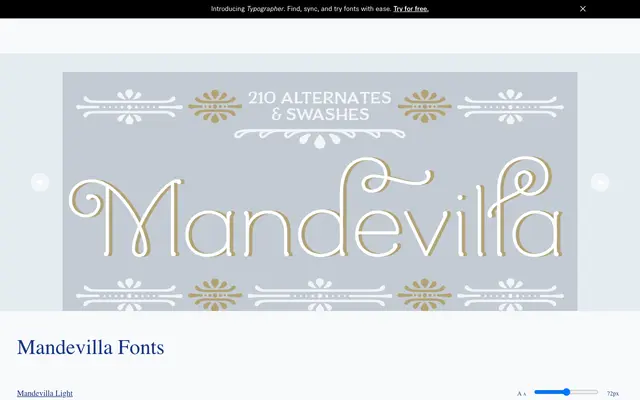
Mandevilla
A semi-serif display family with an elaborate decorative uppercase set, 210 swashes and alternates, and 38 ornaments, aimed at titling and logo work.
Mandevilla offers two distinct uppercase registers: a decorative default set with ornamental caps, and a plain titling set for less embellished applications. A 3/4-size small caps set, which drops the serifs and reduces ornamentation, allows mixed-case settings to retain coherent word shapes. Eight stylistic sets give fine control over letterform variation without requiring professional design software.
Described explicitly as a semi-serif, Mandevilla blends serif and sans-serif letterforms and is designed primarily for titling, display and logo use rather than extended text setting.